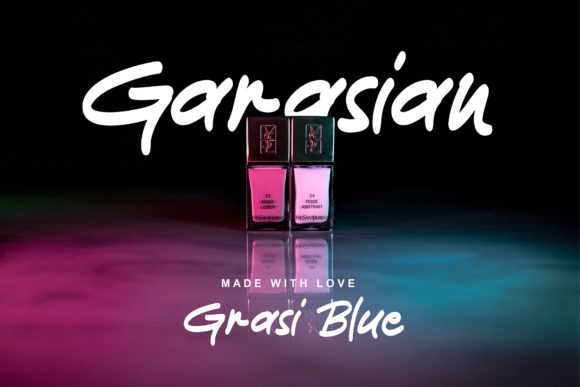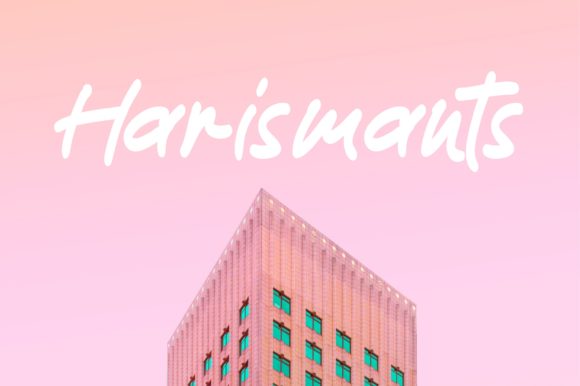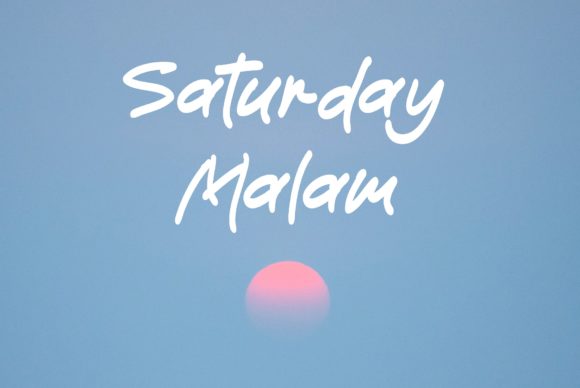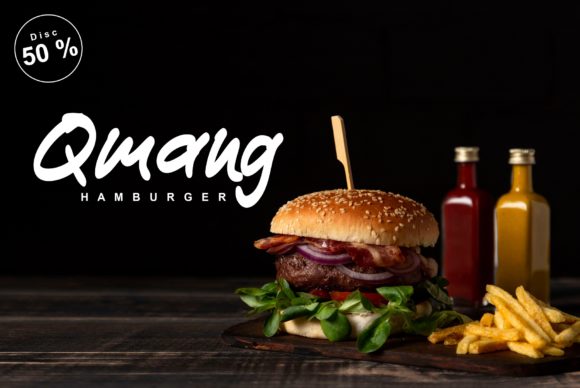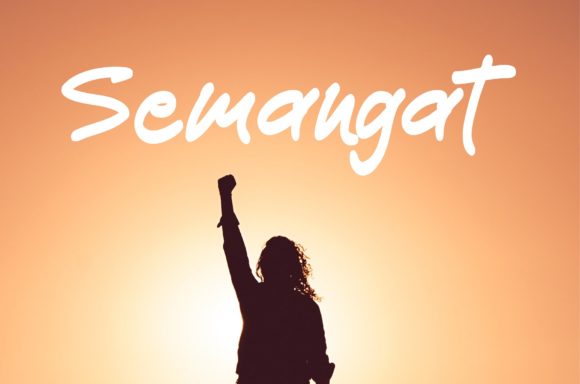
The Ultimate Guide to Gamoda Font: Elevate Your Designs with a Relaxed, Trendy Twist
I’ll never forget the moment I stumbled upon Gamoda Font while working on a project that required a casual, urban vibe. I had been scouring the internet for hours, trying to find the perfect display font that would capture the laid-back essence of my design. And then, I found Gamoda – a relaxed and trendy font that instantly resonated with my creative vision.
As a designer, craftsperson, or creative hobbyist, you’re likely no stranger to the importance of typography in your work. The right font can make or break a design, and Gamoda Font is certainly a contender for those looking to add a touch of informality to their creations. In this article, we’ll dive into the world of Gamoda Font, exploring its features, uses, and everything in between.
An Honest Review of Gamoda Font
What I Love About Gamoda Font
- ✨ Casual, urban style: Gamoda Font boasts a unique blend of relaxation and trendiness, making it perfect for informal designs.
- ✅ Highly legible: Despite its casual nature, Gamoda Font remains highly legible, even at smaller sizes.
- 🌈 Versatile: This font is suitable for a wide range of design projects, from branding and advertising to packaging and more.
While Gamoda Font is an excellent choice for many designers, it’s not without its quirks. For instance:
- 🤔 Limited formal applications: Due to its casual nature, Gamoda Font may not be the best fit for formal or professional designs.
- ⚠️ Overuse of stylistic alternates: While Gamoda Font offers a range of stylistic alternates, overusing them can lead to a cluttered, unprofessional look.
The Backstory of Gamoda Font
While the true origins of Gamoda Font are unclear, it’s likely that the font was designed with the intention of capturing the essence of urban, casual style. The font’s creator may have drawn inspiration from street art, graffiti, or other forms of urban expression.
Q: What type of designs is Gamoda Font best suited for?
A: Gamoda Font is ideal for informal designs, such as branding, advertising, packaging, and more.
Q: Does Gamoda Font support OpenType features?
A: Yes, Gamoda Font supports OpenType features, including stylistic alternates and glyphs.